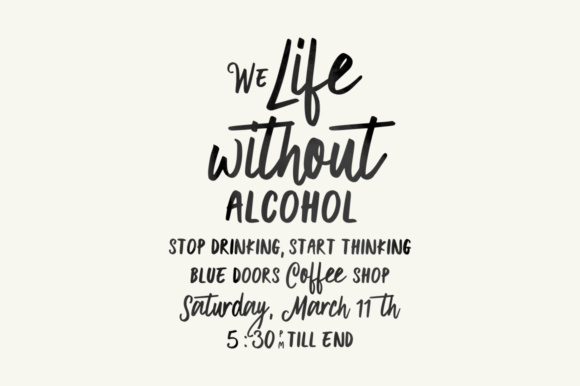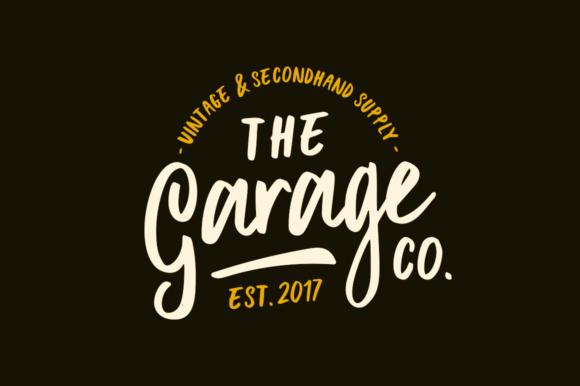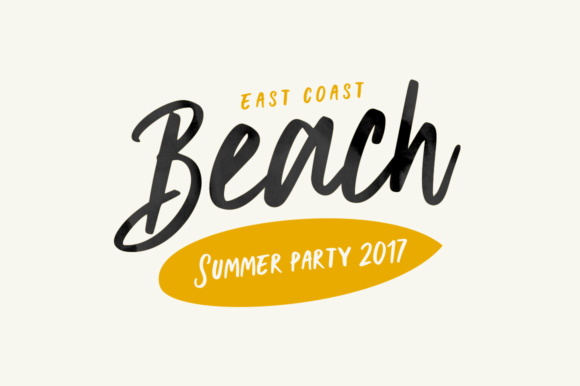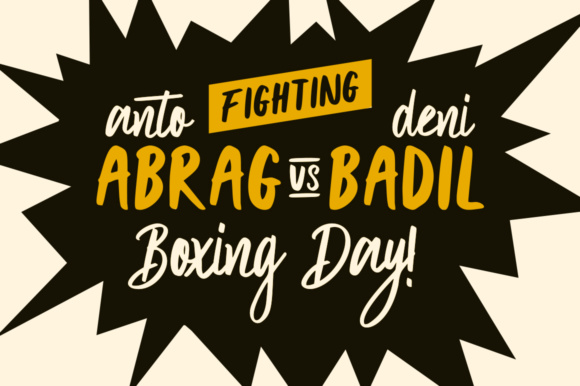
Introducing Black Gate Font: A Handmade Marker Font with a Vintage Twist
Are you looking for a font that adds a touch of nostalgia and personality to your designs? Look no further than Black Gate Font, a handmade marker font inspired by vintage signs and advertising. With its unique, natural feel, Black Gate is perfect for designers and crafters who want to add a personal touch to their work.
The Inspiration Behind Black Gate
Black Gate Font is inspired by the classic signs and advertisements of yesteryear. The font’s creator aimed to capture the essence of handmade signage, with all its imperfections and quirks. The result is a font that feels like it was drawn with a marker, complete with subtle variations in line width and a dash of character.
What Makes Black Gate Special
So, what sets Black Gate apart from other fonts on the market? Here are just a few features that make it special:
- Handmade with love: Black Gate is a truly handmade font, crafted with care and attention to detail. Each letterform has been carefully drawn to ensure that it feels natural and authentic.
- Vintage inspiration: Black Gate’s vintage inspiration gives it a unique, retro feel that’s perfect for designs that need a touch of nostalgia.
- Marker-like texture: The font’s marker-like texture gives it a tactile, hand-drawn feel that’s perfect for adding a personal touch to your designs.
- Natural feel: Black Gate’s natural feel makes it perfect for designs that need to feel organic and authentic.
Uses for Black Gate Font
Black Gate Font is incredibly versatile, making it perfect for a wide range of design projects. Here are just a few ideas to get you started:
- Branding: Use Black Gate to create a unique and memorable brand identity that stands out from the crowd.
- Labels: Add a personal touch to your labels with Black Gate’s handmade, vintage-inspired feel.
- Greeting cards: Create one-of-a-kind greeting cards with Black Gate’s natural, marker-like texture.
- Advertising: Use Black Gate to add a touch of nostalgia and personality to your advertising campaigns.
- Badges: Create custom badges with Black Gate’s unique, hand-drawn feel.
Why Designers and Crafters Love Black Gate
So, why do designers and crafters love Black Gate Font? Here are just a few reasons:
- Easy to use: Black Gate is incredibly easy to use, even for designers who are new to working with fonts.
- Highly versatile: Black Gate can be used for a wide range of design projects, from branding to greeting cards.
- Unique feel: Black Gate’s handmade, vintage-inspired feel sets it apart from other fonts on the market.
- Supports creative freedom: With Black Gate, designers and crafters have the freedom to create unique and personalized designs that reflect their individual style.
In conclusion, Black Gate Font is a unique and versatile handmade marker font that’s perfect for designers and crafters who want to add a personal touch to their work. With its vintage inspiration, natural feel, and marker-like texture, Black Gate is sure to become a go-to font for anyone looking to create authentic and engaging designs. Whether you’re working on a branding project, creating custom labels, or designing greeting cards, Black Gate Font is the perfect choice.